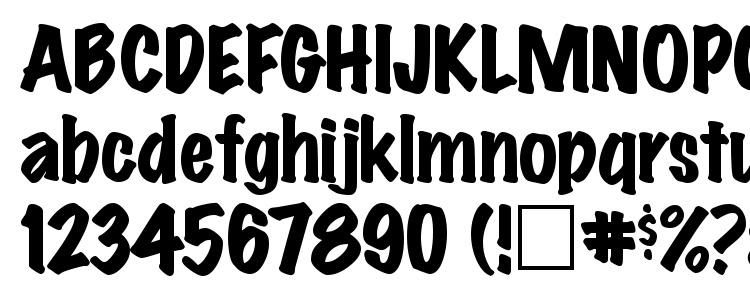
Marker felt font adobe. Marker felt by copyright [c] typographer mediengestaltung, 2001. For information regarding other uses of permanent marker, see copyright and license details for permanent marker regular. Font size 24pt 26pt 28pt 32pt 36pt 40pt 44pt 48pt 54pt.
Download the marker felt thin free font. Font size 24pt 26pt 28pt 32pt 36pt 40pt 44pt 48pt 54pt 60pt 66pt 72pt 80pt 88pt 96pt 106pt 116pt 128pt 142pt 158pt 178pt 198pt 218pt 240pt. These fonts were originally created in 2012 so acrobat users could sign documents electronically, but they were capable of so much.
Hubert jocham type hide show add to. And various graphic designers keep using it for their different work approaches. Font marker felt normal font download free at fontsov.com, the largest collection of cool fonts for windows 7 and mac os in truetype(.ttf) and opentype(.otf) format 67 professional ds marker felt fonts to download
Introducing the marker felt font it is the clean handwritten font that contains the legible bold text forms and numbers. Marker felt hide show add to favorite download. Download the marker felt font by dieter steffmann.
Explore felt tip designed by mark simonson at adobe fonts. Detailed information on the marker felt thin font: After releasing, this typeface has got too much popularity in the earliest days.
Votes, rated based on results identification. Explore felt tip designed by mark simonson at adobe fonts. These improved versions preserve all of the original designers work.
The three eponymous styles of the family — ernie, frank, and tiffany — each have a unique flavor with its own rhythm and character. 57 professional marker felt fonts to download. Download the marker felt thin plain regular free font.
Press ctrl+c/cmd+c to copy and esc to close this dialog. Marker felt font is a clean handwritten font family with very legible bold text forms and numbers. Permanent marker is available via an open source license.
Adobe fonts is the easiest way to bring great type into your workflow. Enter custom sample text to change the font previews below. Fonts markerfelt in brandname category.
Detailed information on the marker felt thin plain regular font: A trio of fonts based on the handwriting of some of adobe’s own designers. Our selection of carefully curated graffiti style typefaces includes exclusive, upgraded versions only available here.
Here you will find fonts that look like felt tip roman. Apr 01, 2011 at 20:31. A handmade typeface with 3 styles, available from adobe fonts for sync and web use.